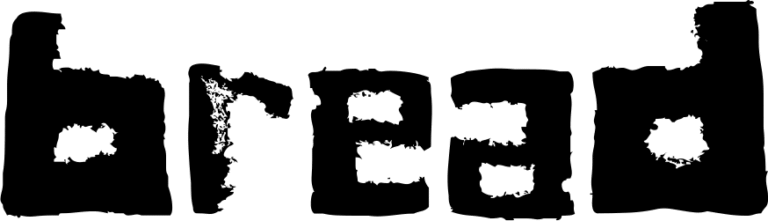
Soup of Justice Font
Designed byOmen Type
Soup of Justice can be a great option when you need to show a cartoonish mood and spread happiness. This fat sans serif font comes with bold and thick letters so that you can use it for titles, headlines, banners, and whatnot. Download this cartoon font now and knock over the clients with a feather.